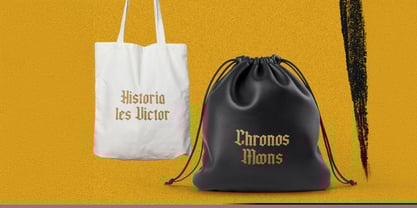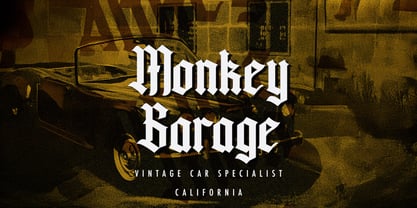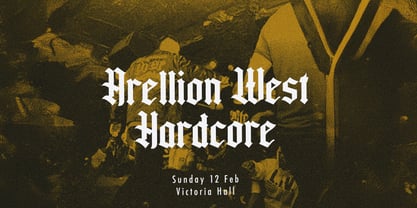
Rogfus Sejatty
The Rogfus Sejatty Font Family was designed by Virgiawan Listanto and published by Stringlabs Creative Studio. Rogfus Sejatty contains 1 styles. More about this family
Rogfus Sejatty is a commanding blackletter font forged with attitude and heritage. With its sharp lines, strong contrast, and gothic elegance, Rogfus Sejatty brings a rebellious edge to traditional letterforms perfect for designs that crave drama and distinction. Whether you're crafting a metal band logo, a vintage label, or bold merchandise, Rogfus Sejatty delivers intensity, style, and an unmistakable presence. It’s the font that speaks loud, dark, and unapologetically bold.